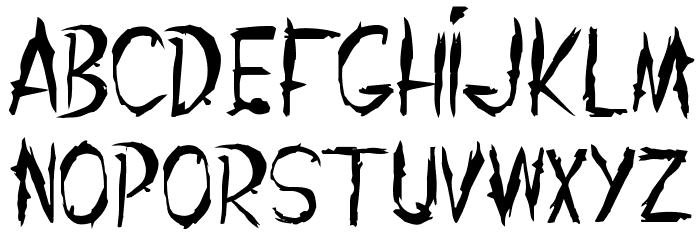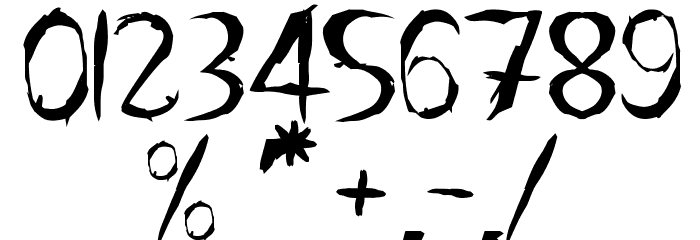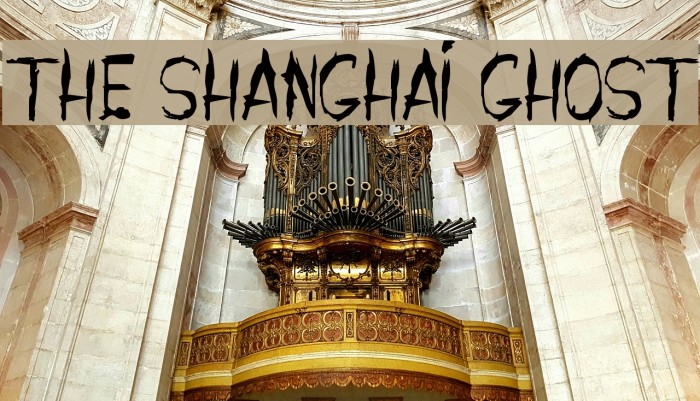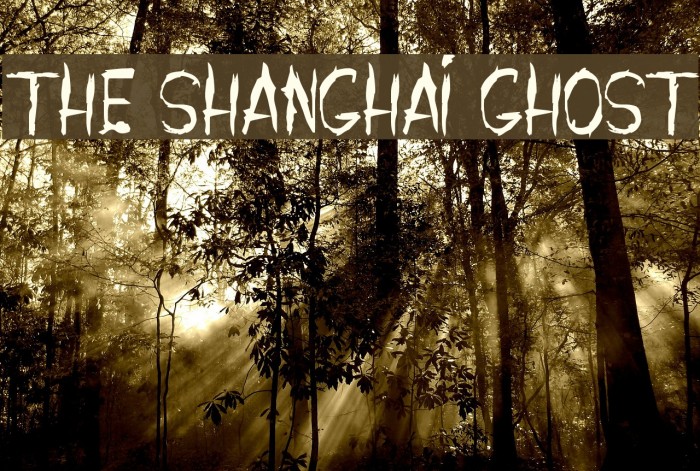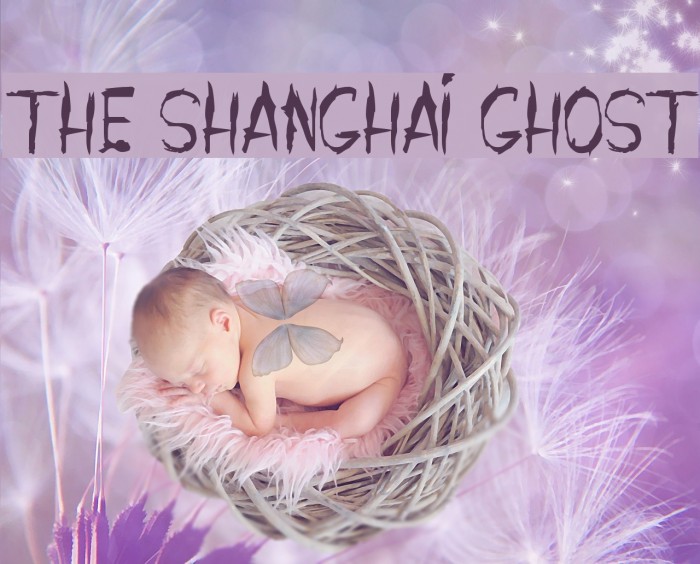
THE SHANGHAI GHOST Font
This font features a bold and jagged design, reminiscent of brush strokes or graffiti art. Each character is uniquely crafted with sharp edges and irregular forms, creating a sense of movement and energy. The uppercase and lowercase letters maintain a consistent style, with varying thicknesses that add to the dynamic appearance. Numbers and special characters follow the same aesthetic, ensuring a cohesive look across all text elements. The font's edgy and artistic vibe makes it suitable for projects that require a bold statement or a creative touch.
A bold, jagged font with an artistic, graffiti-like style.
- Proposed Projects: Ideal for posters, album covers, street art designs, and any project needing a bold, artistic flair.